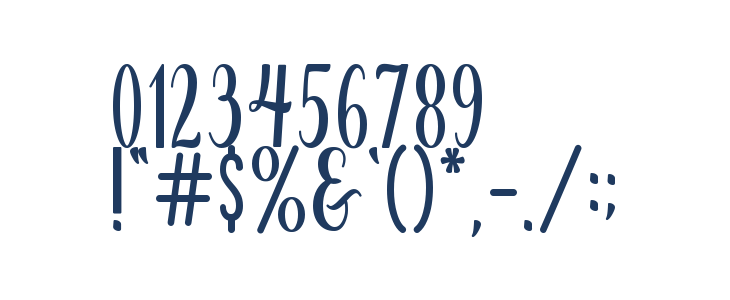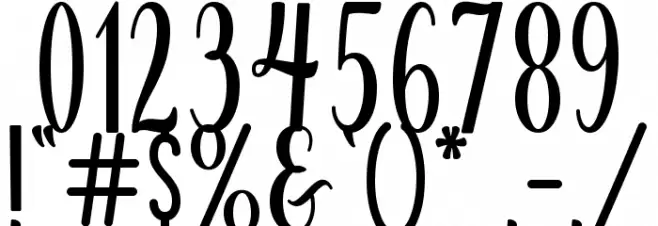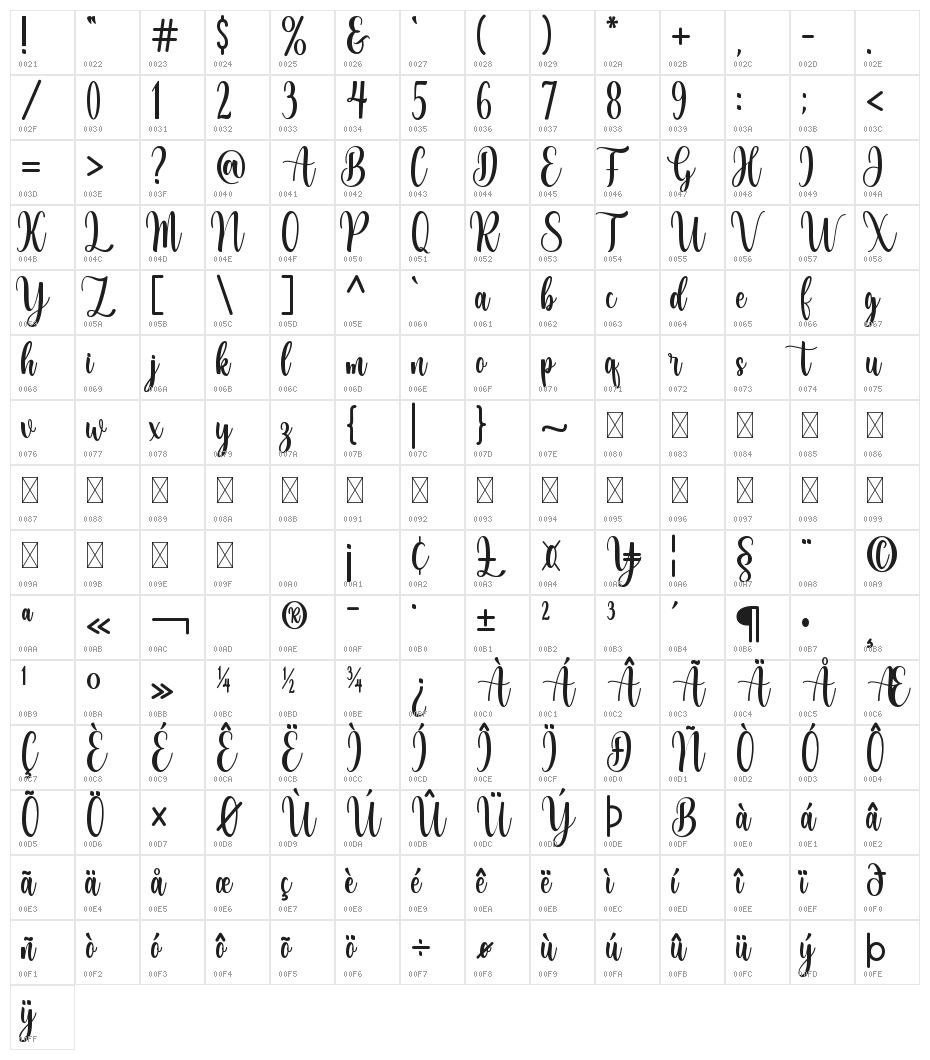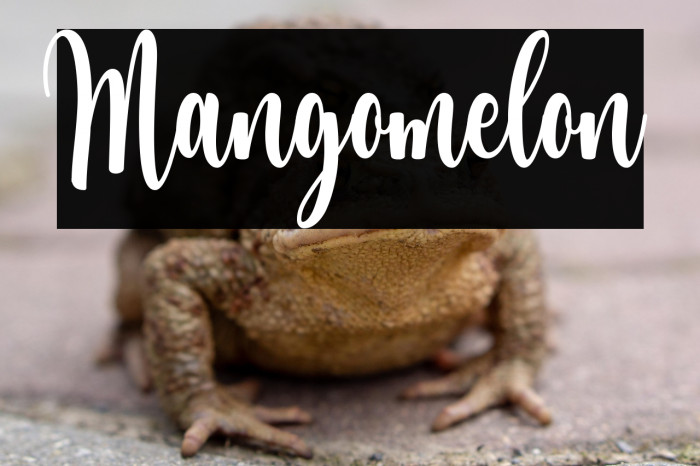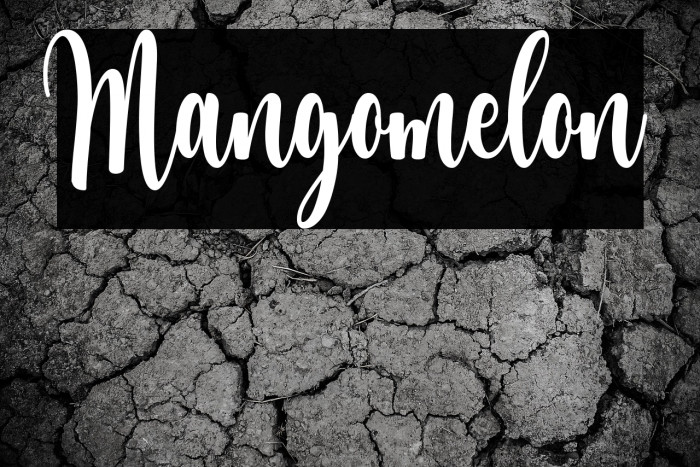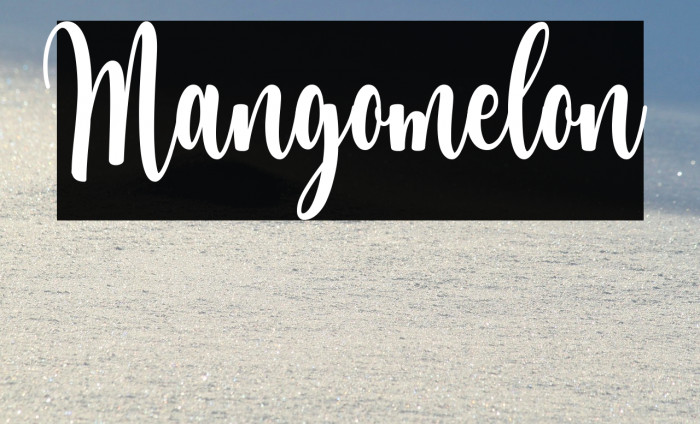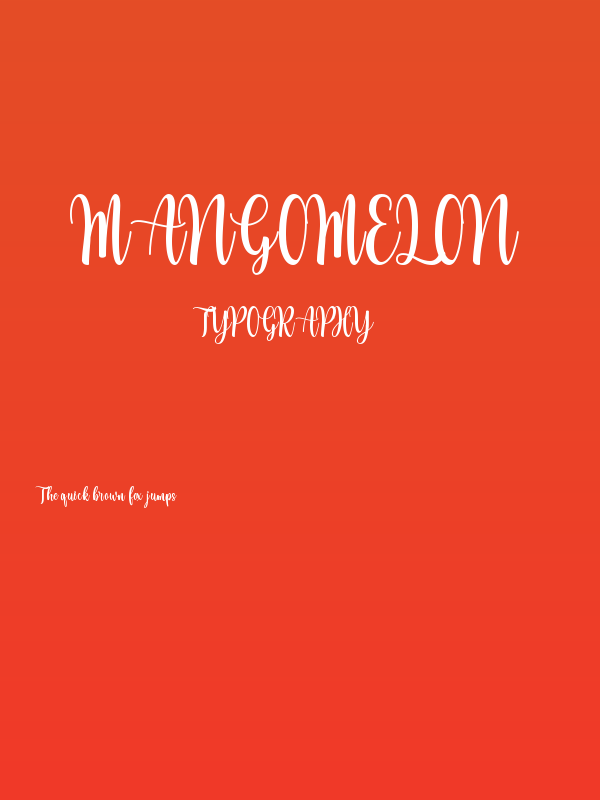
Mangomelon Font
Mangomelon Description
This font features a playful and elegant script style with a handwritten appearance. The uppercase letters are characterized by their flowing, cursive forms, while the lowercase letters maintain a consistent, smooth stroke. The numbers are bold and slightly rounded, complementing the overall aesthetic. Special characters are designed with the same fluidity, adding a cohesive touch to the set. The font's whimsical nature makes it suitable for creative and informal projects, offering a sense of warmth and personality.
A playful, elegant script font with a handwritten style from Regular fonts.